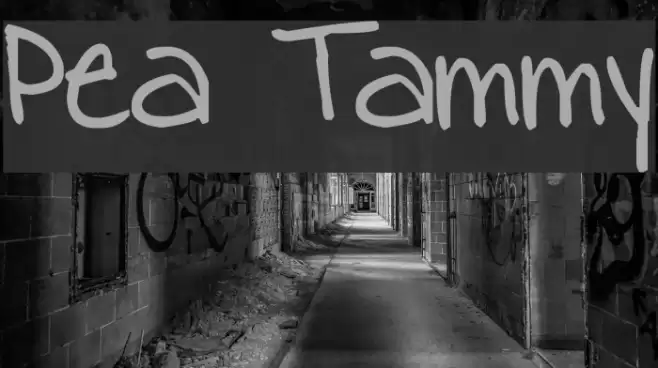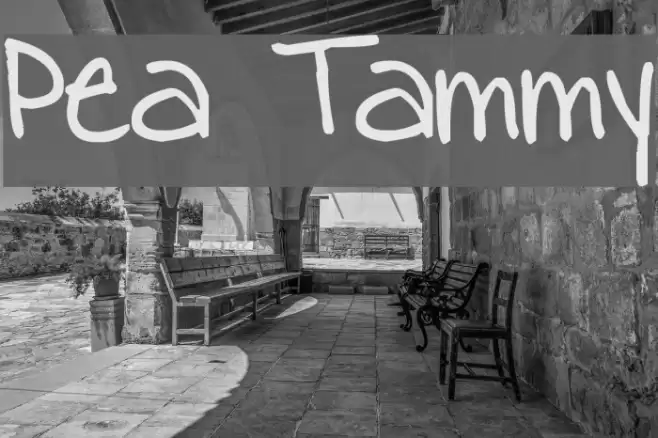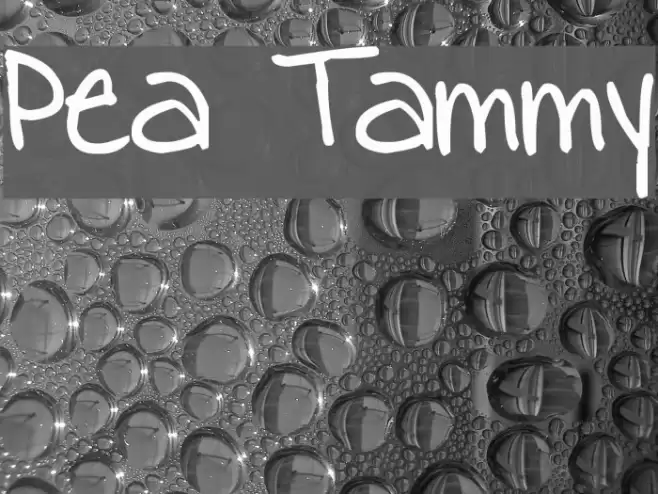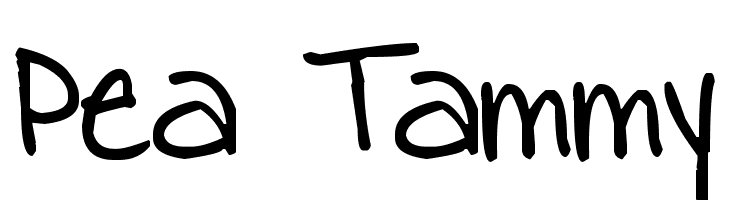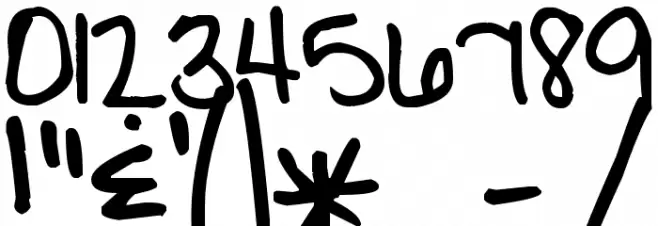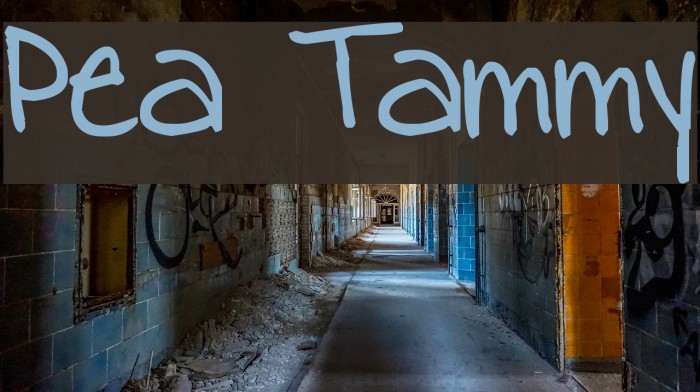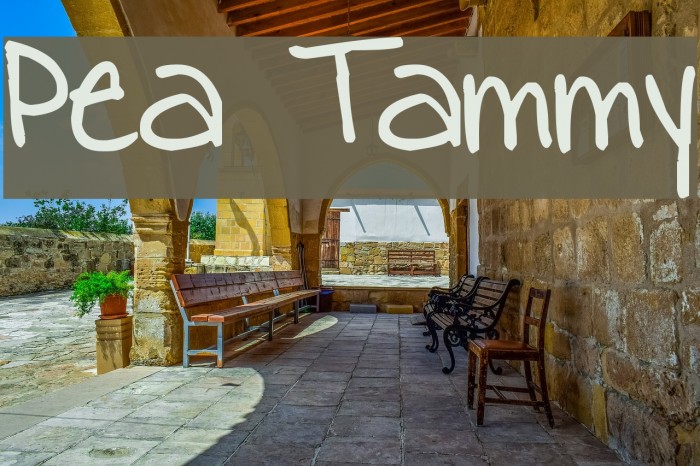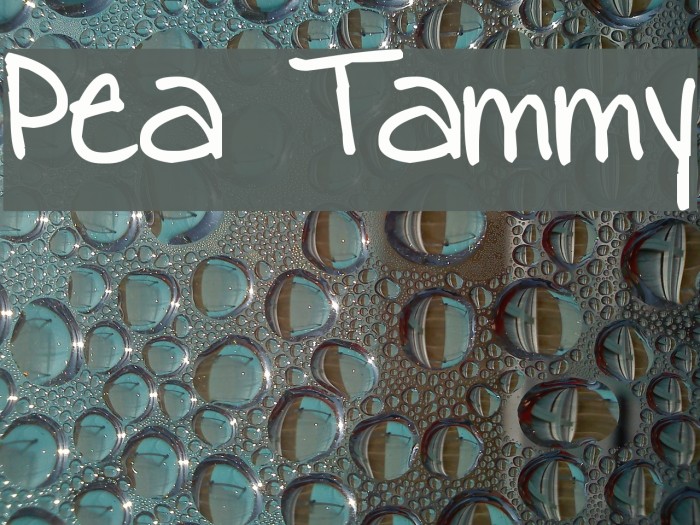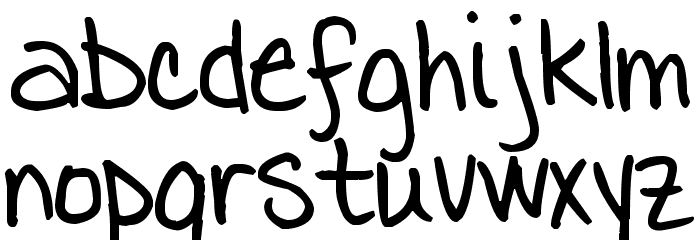
Pea Tammy Font
Pea Tammy Description
This font exhibits a playful and casual handwritten style, characterized by its informal and friendly appearance. The letters are slightly irregular, with a natural flow that mimics real handwriting. The uppercase and lowercase letters maintain a consistent style, with rounded edges and a slight slant, giving it a relaxed and approachable feel. The numbers and special characters follow the same aesthetic, ensuring uniformity across all glyphs. This font is ideal for projects that require a personal touch, such as greeting cards, invitations, or informal branding materials.
A playful, handwritten font with a casual and friendly style from Uncategorized fonts.
- Font: Pea Tammy
- Proposed Projects: Ideal for greeting cards, invitations, personal branding, and informal communication.
- Overall Style: Casual, Playful
- Use Case: Headlines, Informal text, Personal projects